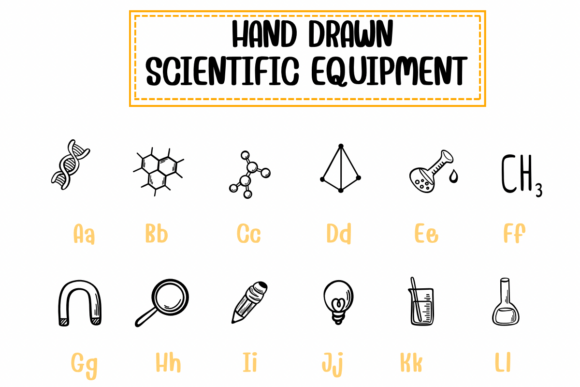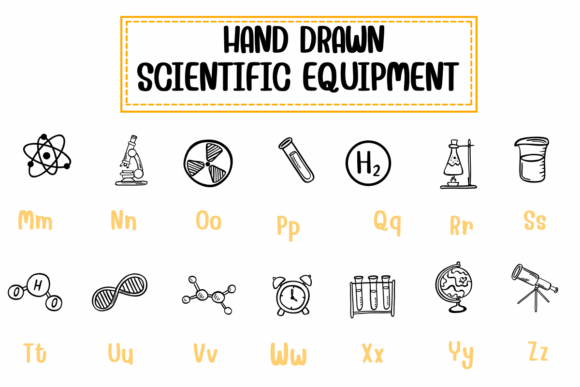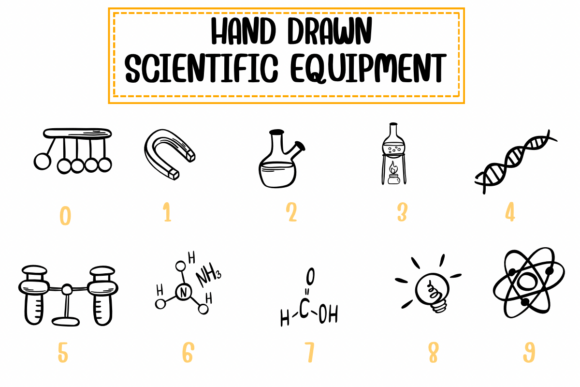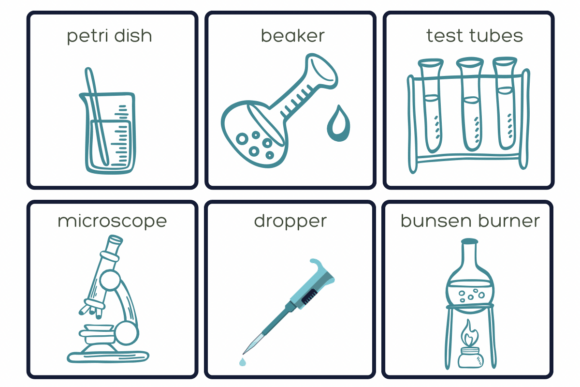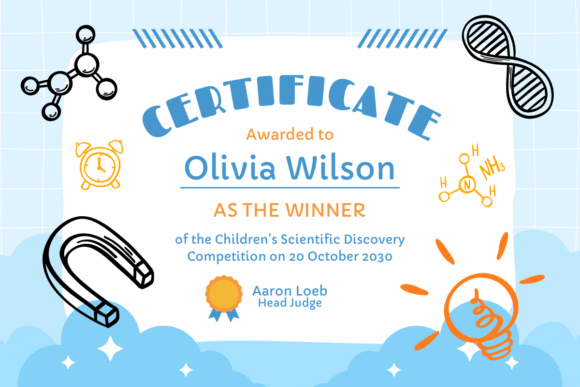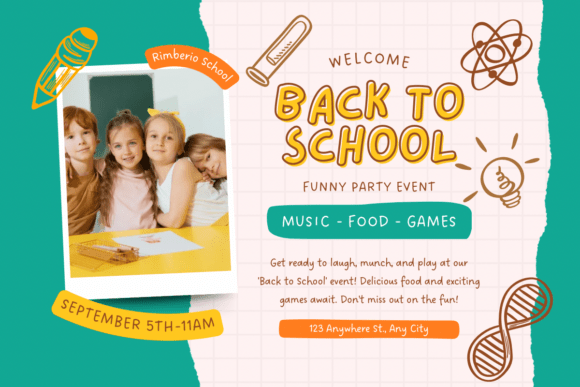
Introducing the Hand Drawn Scientific Equipment Font: A Playful Approach to Science Illustration
Are you a teacher, student, or creative looking for a fun and engaging way to illustrate science concepts? Look no further than the Hand Drawn Scientific Equipment Font, a charming dingbat font that turns every keystroke into a hand-sketched science symbol. This delightful font is packed with doodle-style illustrations of lab tools, molecules, and science-themed icons, perfect for educational materials, STEM classroom decor, science fair posters, or kid-friendly printables.
What is a Dingbat Font?
For those who may be unfamiliar, a dingbat font is a type of font that features a collection of symbols, icons, and illustrations rather than traditional letters and numbers. These fonts are often used to add visual interest and personality to designs, and can be especially useful for creating engaging and interactive materials.
The Hand Drawn Scientific Equipment Font: A Unique Approach to Science Illustration
The Hand Drawn Scientific Equipment Font takes the traditional dingbat font to the next level with its unique and playful approach to science illustration. Each symbol and icon in the font is carefully hand-drawn to resemble a charming doodle, making science fun and accessible for students of all ages. From beakers and test tubes to molecules and lab coats, this font has everything you need to create engaging and interactive science materials.
Perfect for Educational Materials and STEM Classroom Decor
Teachers and educators will love the Hand Drawn Scientific Equipment Font for its ability to make science concepts fun and engaging for students. Use the font to create interactive worksheets, science fair posters, and educational materials that will capture your students’ imaginations and inspire them to learn. The font is also perfect for creating STEM classroom decor, including bulletin boards, posters, and other visual displays.
Key Features of the Hand Drawn Scientific Equipment Font
- Hand-drawn illustrations: Each symbol and icon in the font is carefully hand-drawn to resemble a charming doodle.
- Playful and whimsical: The font has a playful and whimsical look that makes science fun and accessible.
- Science-themed icons: The font includes a wide range of science-themed icons, including lab tools, molecules, and science-themed symbols.
- Perfect for educational materials: The font is ideal for creating interactive worksheets, science fair posters, and educational materials.
Tips for Using the Hand Drawn Scientific Equipment Font
Here are a few tips for using the Hand Drawn Scientific Equipment Font in your designs:
- Use it for headings and titles: The font is perfect for creating eye-catching headings and titles for science materials.
- Mix it with other fonts: Combine the Hand Drawn Scientific Equipment Font with other fonts to create visually interesting and engaging materials.
- Use it for illustrations: Use the font to create illustrations and graphics for science materials, such as diagrams and infographics.
- Experiment with colors: The font looks great in a variety of colors, so don’t be afraid to experiment and find the perfect color scheme for your design.
The Hand Drawn Scientific Equipment Font is a unique and playful approach to science illustration that is perfect for teachers, students, and creatives alike. With its hand-drawn illustrations, whimsical look, and science-themed icons, this font is sure to make science fun and accessible for students of all ages. Whether you’re creating educational materials, STEM classroom decor, or kid-friendly printables, this font is a must-have for any designer or crafter looking to add a touch of personality to their designs.